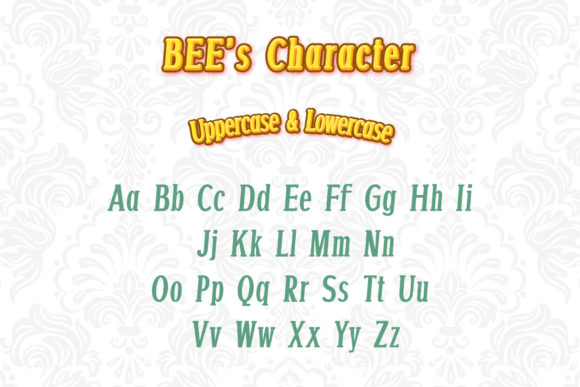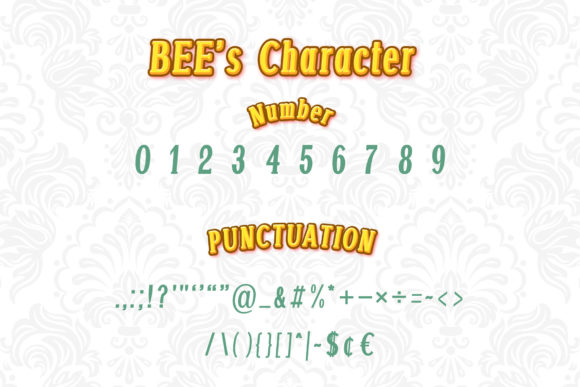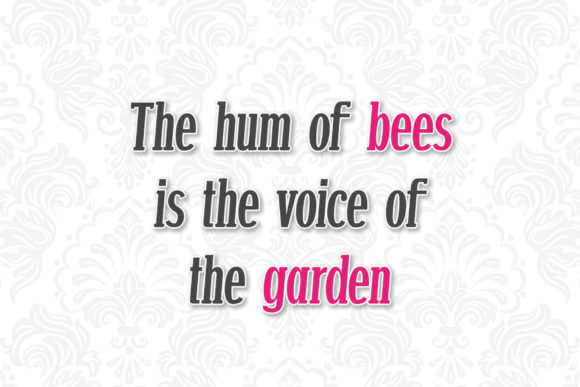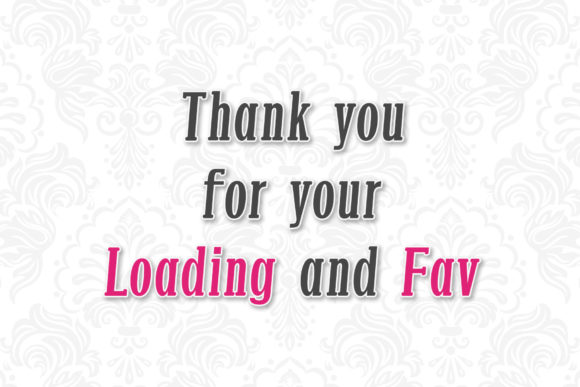
Bee Font: The Simple yet Bold Serif Font for Your Creative Projects
Are you looking for a font that can add a touch of simplicity and boldness to your creative projects? Look no further than the Bee Font! This versatile serif font is perfect for a wide range of projects, from crafting and designing to digital and print media. In this article, we’ll explore the features and benefits of the Bee Font, and how it can elevate your creative ideas to the next level.
What is Bee Font?
Bee Font is a simple and bold serif font that is designed to be highly versatile and adaptable. Its clean lines and classic serif details make it perfect for a wide range of applications, from headings and titles to body text and captions. Whether you’re working on a digital project, such as a website or social media graphic, or a print project, like a brochure or poster, Bee Font is a great choice.
Key Features of Bee Font
- Simple and Bold: Bee Font has a clean and straightforward design that makes it easy to read and understand. Its bold weight ensures that your text stands out, making it perfect for headings and titles.
- Serif Details: The font features classic serif details that add a touch of elegance and sophistication to your text.
- Highly Versatile: Bee Font can be used in a wide range of projects, from digital and print media to crafting and designing.
- Easy to Read: The font’s clean lines and simple design make it easy to read, even at small sizes.
Benefits of Using Bee Font
So, why should you choose Bee Font for your creative projects? Here are just a few benefits of using this versatile font:
- Universal Appeal: Bee Font’s classic design ensures that it will appeal to a wide range of audiences and tastes.
- Flexibility: The font’s versatility makes it perfect for a wide range of projects, from digital and print media to crafting and designing.
- Easy to Pair: Bee Font can be easily paired with other fonts to create a unique and cohesive look.
- Time-Saving: With Bee Font, you can quickly and easily create professional-looking text that elevates your creative projects.
How to Use Bee Font in Your Creative Projects
Now that we’ve explored the features and benefits of Bee Font, let’s take a look at how you can use it in your creative projects. Here are a few ideas to get you started:
- Headings and Titles: Use Bee Font as a heading or title font to add a touch of boldness and simplicity to your text.
- Body Text: Use Bee Font as a body text font to create easy-to-read and professional-looking text.
- Crafting and Designing: Use Bee Font in your crafting and designing projects, such as making signs, banners, and other visual elements.
- Digital and Print Media: Use Bee Font in your digital and print media projects, such as websites, social media graphics, brochures, and posters.
In conclusion, Bee Font is a simple yet bold serif font that is perfect for a wide range of creative projects. Its clean lines, classic serif details, and highly versatile design make it a great choice for designers, crafters, and anyone looking to add a touch of simplicity and boldness to their text. With its universal appeal, flexibility, and ease of use, Bee Font is a great addition to any creative project.